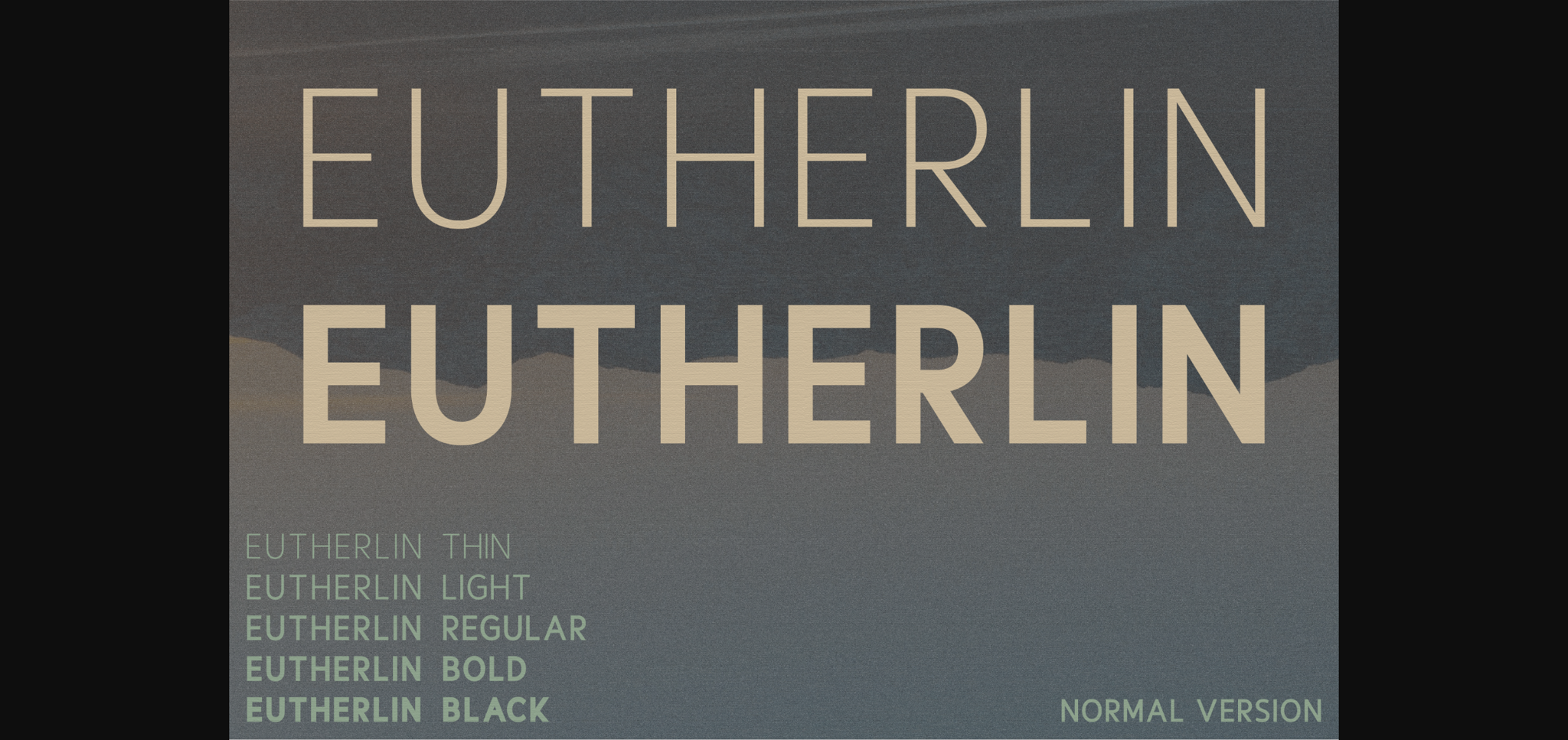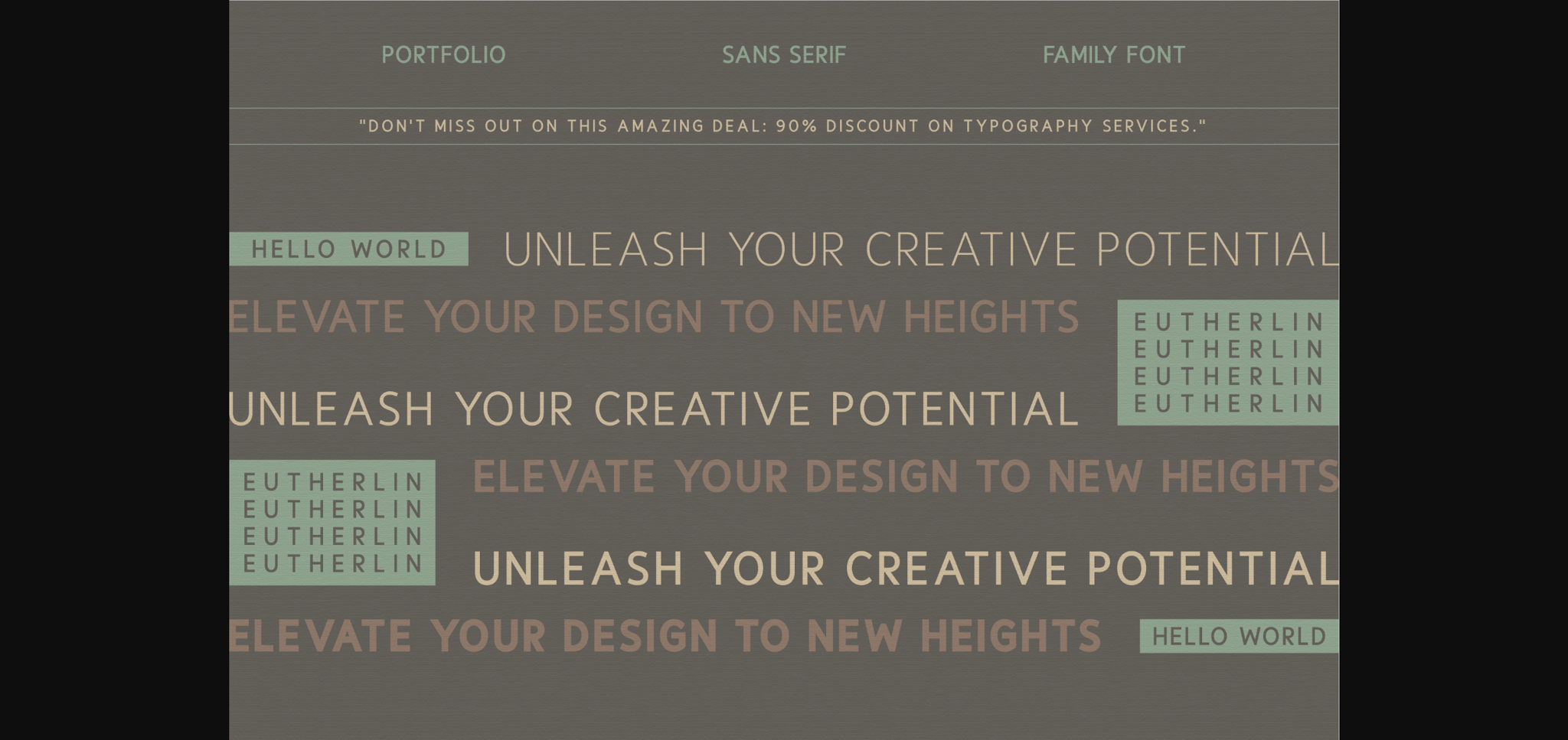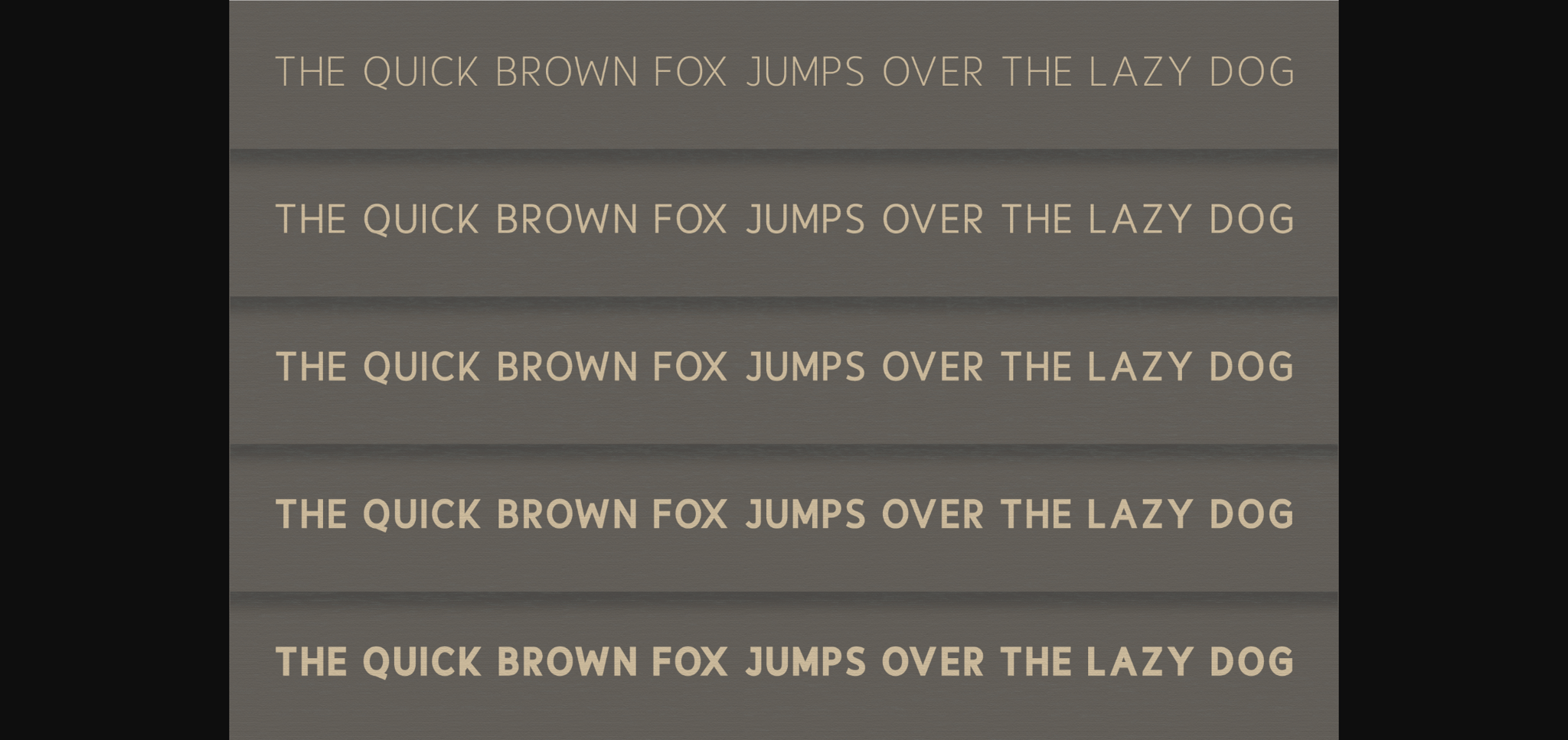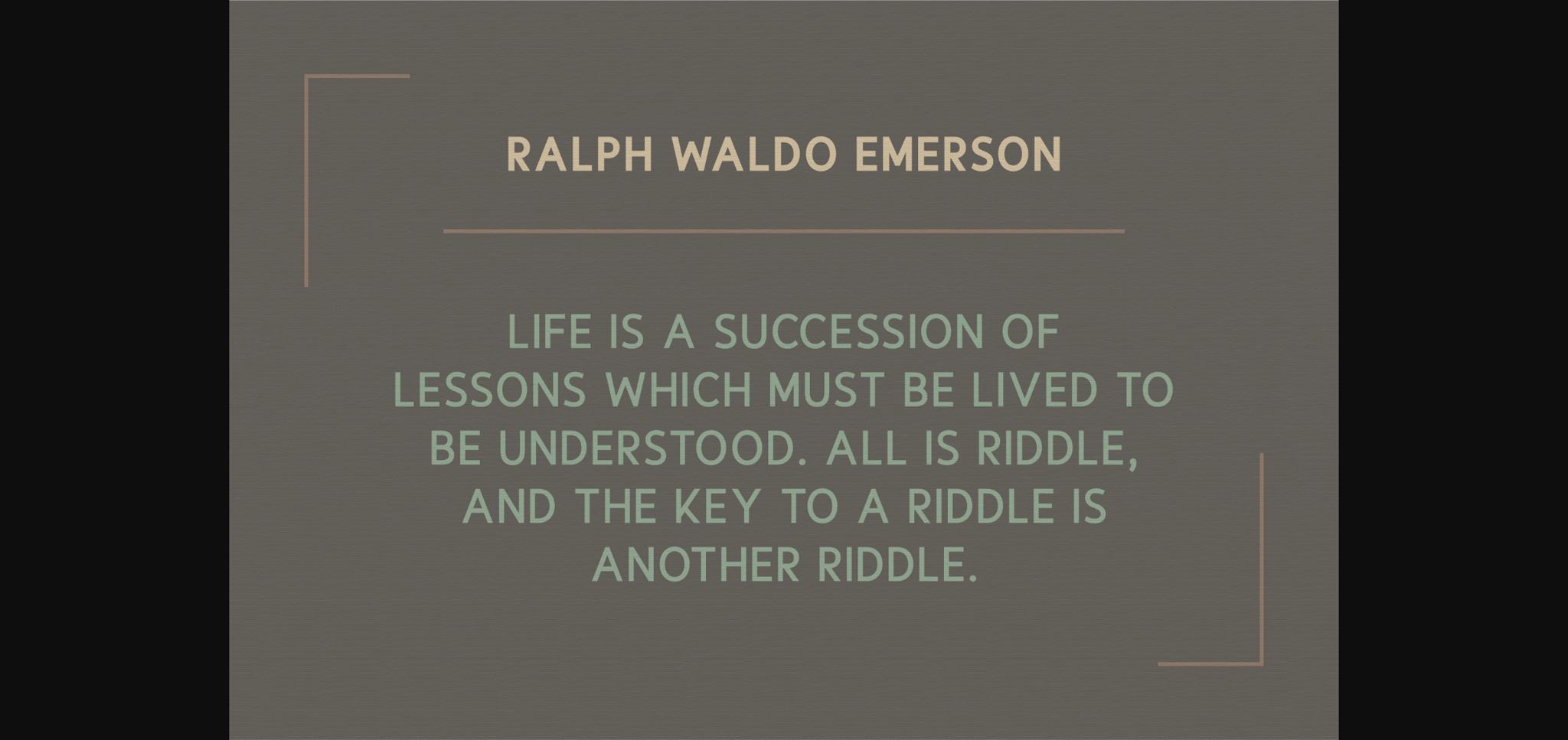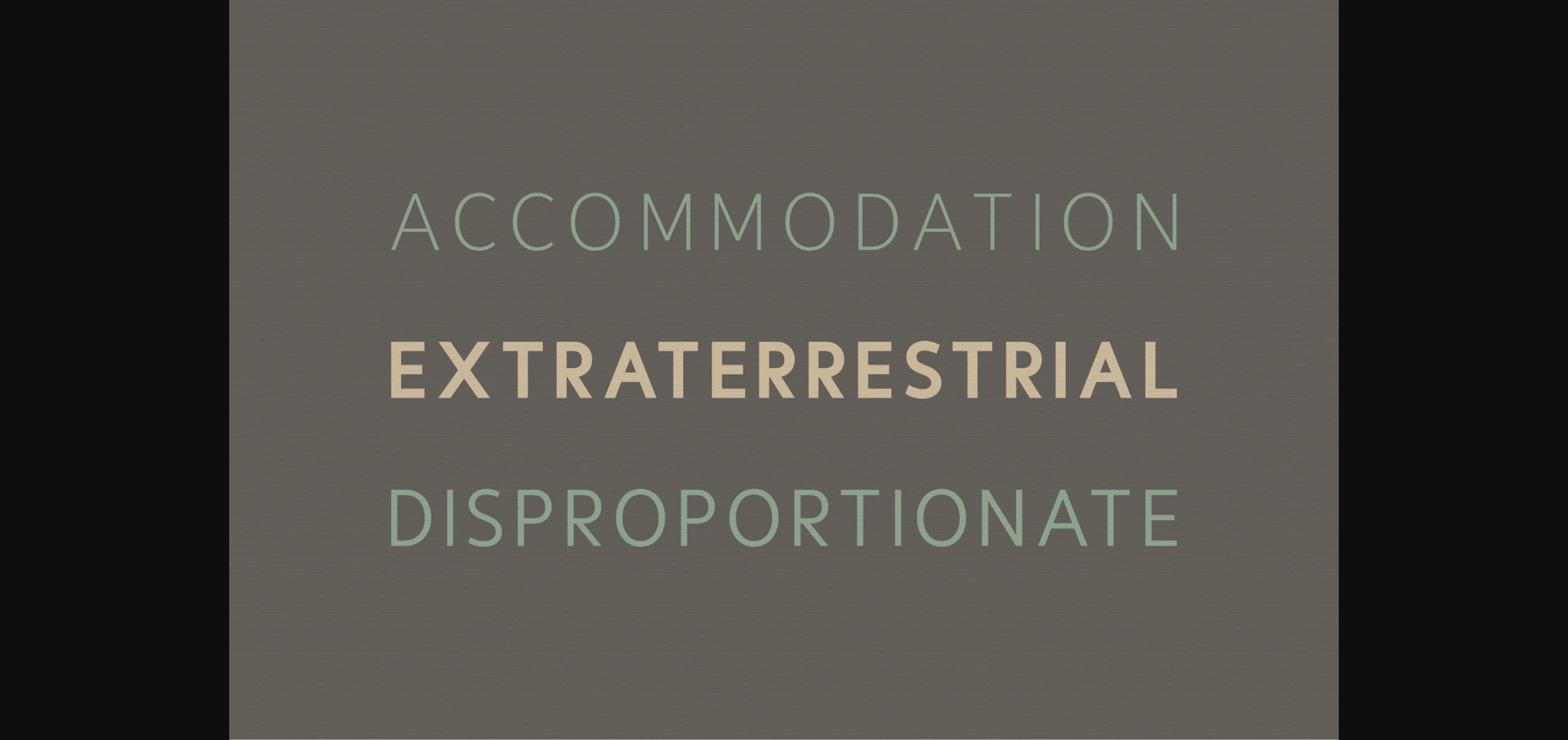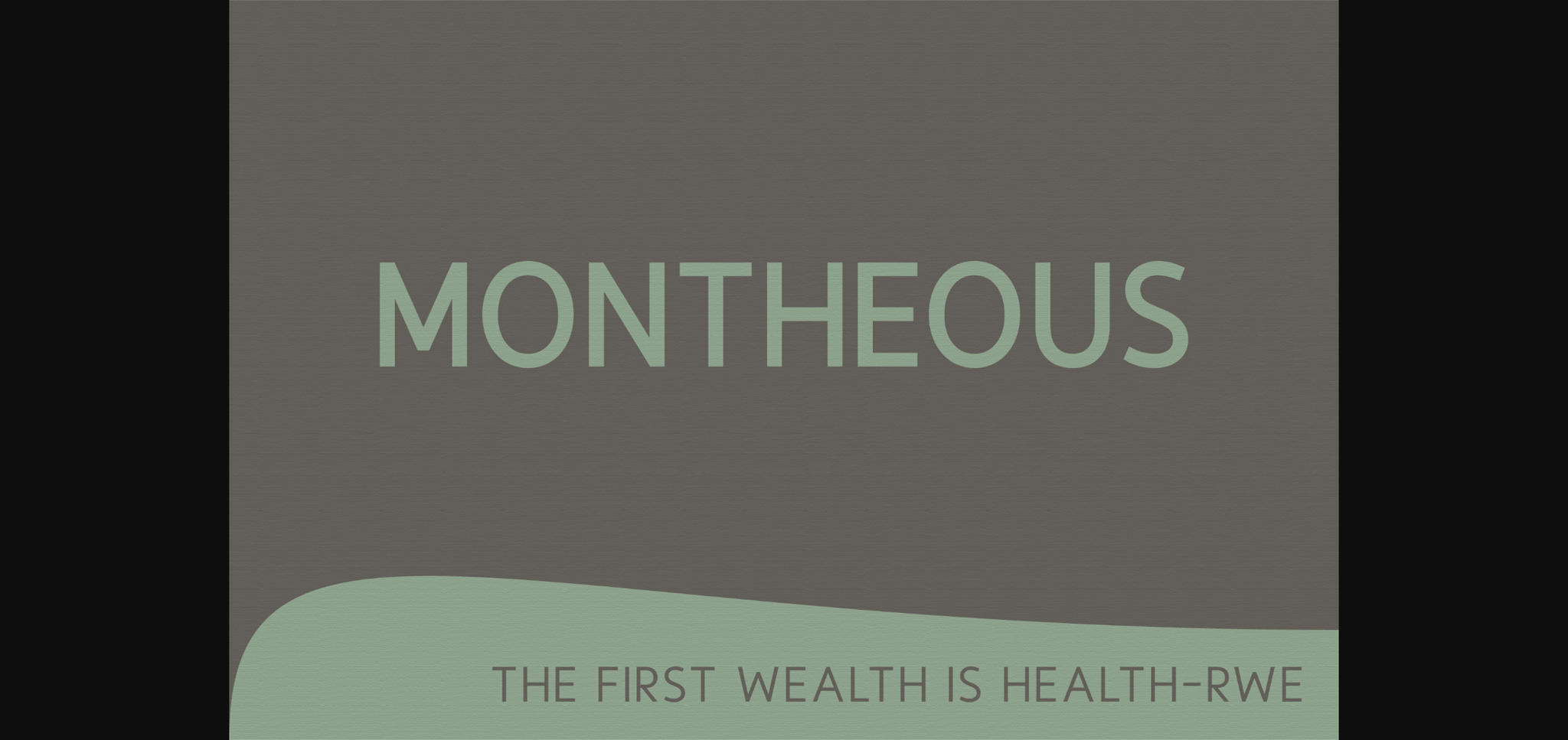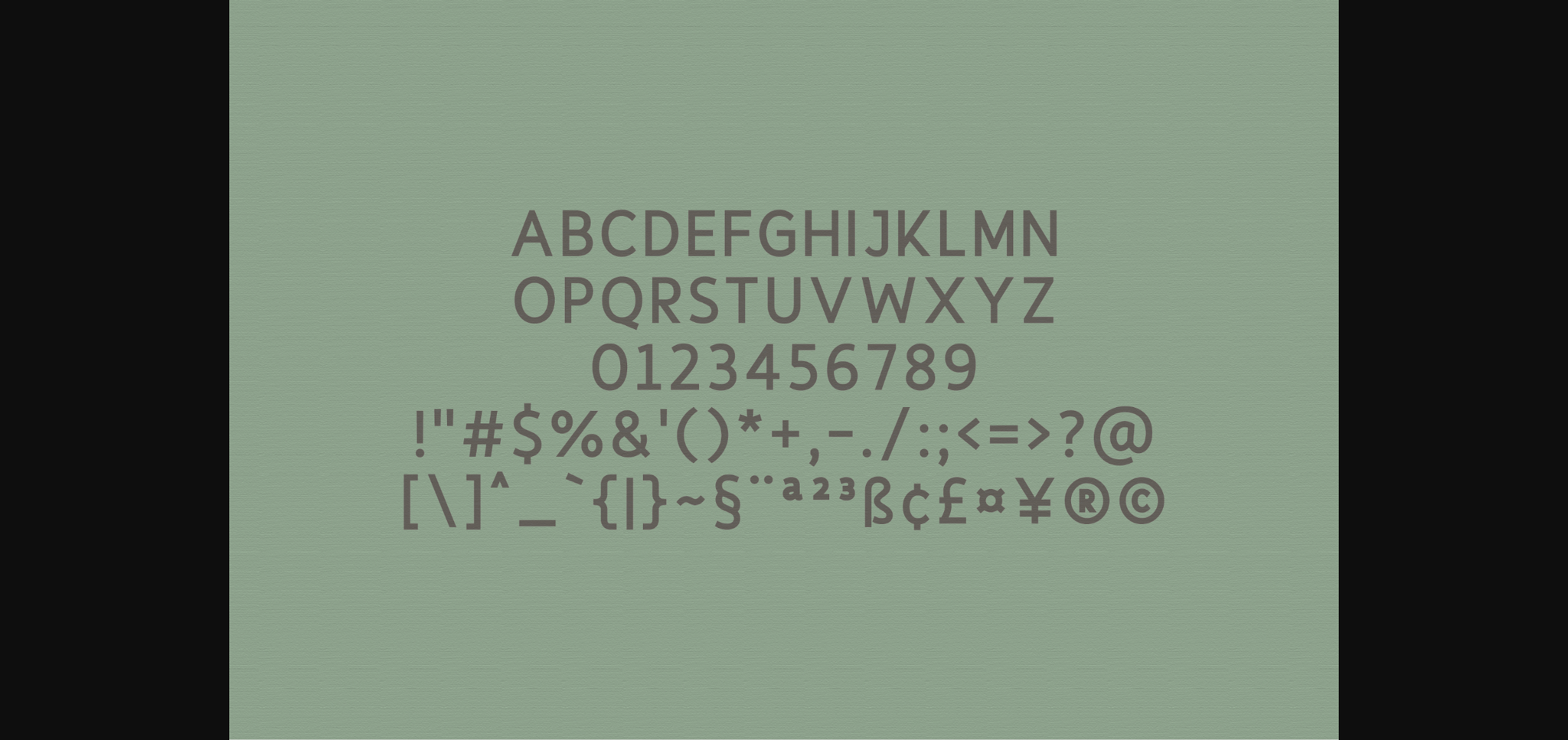
Eutherlin Font
About Eutherlin Font
Presenting Eutherlin, a font family that encapsulates purity of form and sophistication. This exquisite set of sans serif fonts presents to you, five distinct weights, each one blending the cutting-edge aesthetics of modern design with an enriching sense of opulence. Each letterform has been meticulously refined, promising to add an effortless polish to any undertaking, be it a stylish magazine, a distinctive logo, or a captivating film poster. Explore the unique intersection of chic refinement and user-friendly simplicity that can help your designs capture enduring allure. Awaken the potential of your work with the charm of the Eutherlin font family.